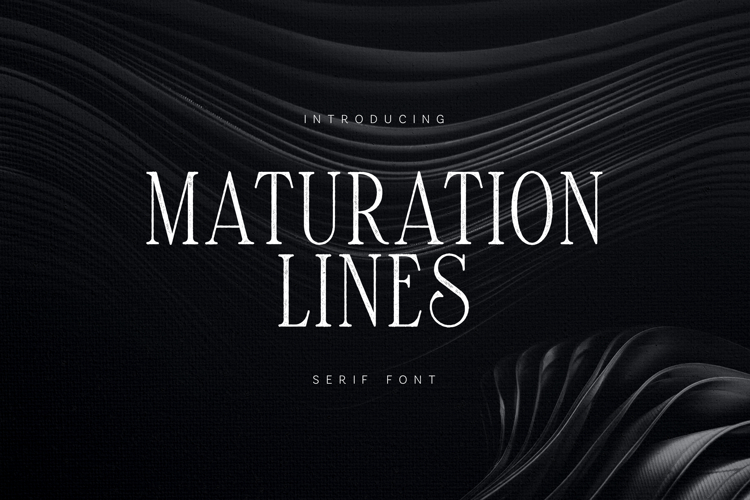
Maturation Lines Modern Classic Serif Typeface
Maturation Lines is an elegant serif font crafted with depth, restraint, and timeless sophistication. Featuring refined letterforms, balanced contrast, and subtle texture, this typeface conveys a sense of growth, calm confidence, and emotional maturity.
Designed for editorial layouts, cinematic titles, book covers, luxury branding, posters, album artwork, and artistic projects, Maturation Lines excels in designs that demand atmosphere and meaning. Its graceful structure allows it to perform beautifully in large headlines while maintaining clarity and elegance.
The font includes a comprehensive character set with uppercase and lowercase letters, numerals, punctuation, symbols, and extensive multilingual support, making it suitable for global and professional design use.
If you’re looking for a serif font that feels thoughtful, cinematic, and quietly powerful, Maturation Lines brings refined storytelling to your typography.